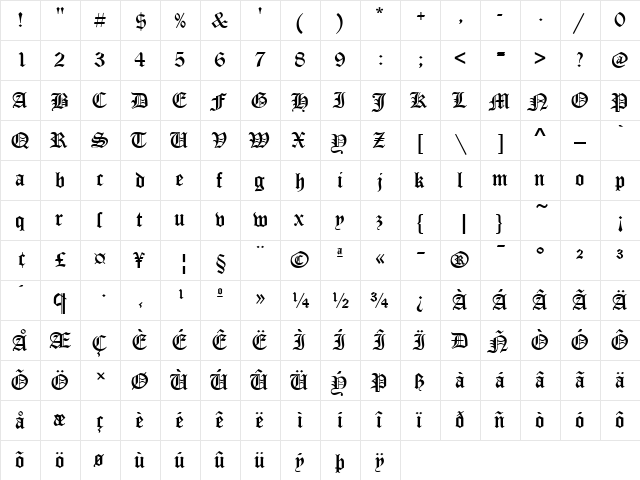
OldeEnglish Regular Font Preview
OldeEnglish Regular
Design Context for OldeEnglish Typeface
OldeEnglish is a composed and adaptable typeface that performs quietly and consistently across a wide range of design contexts.